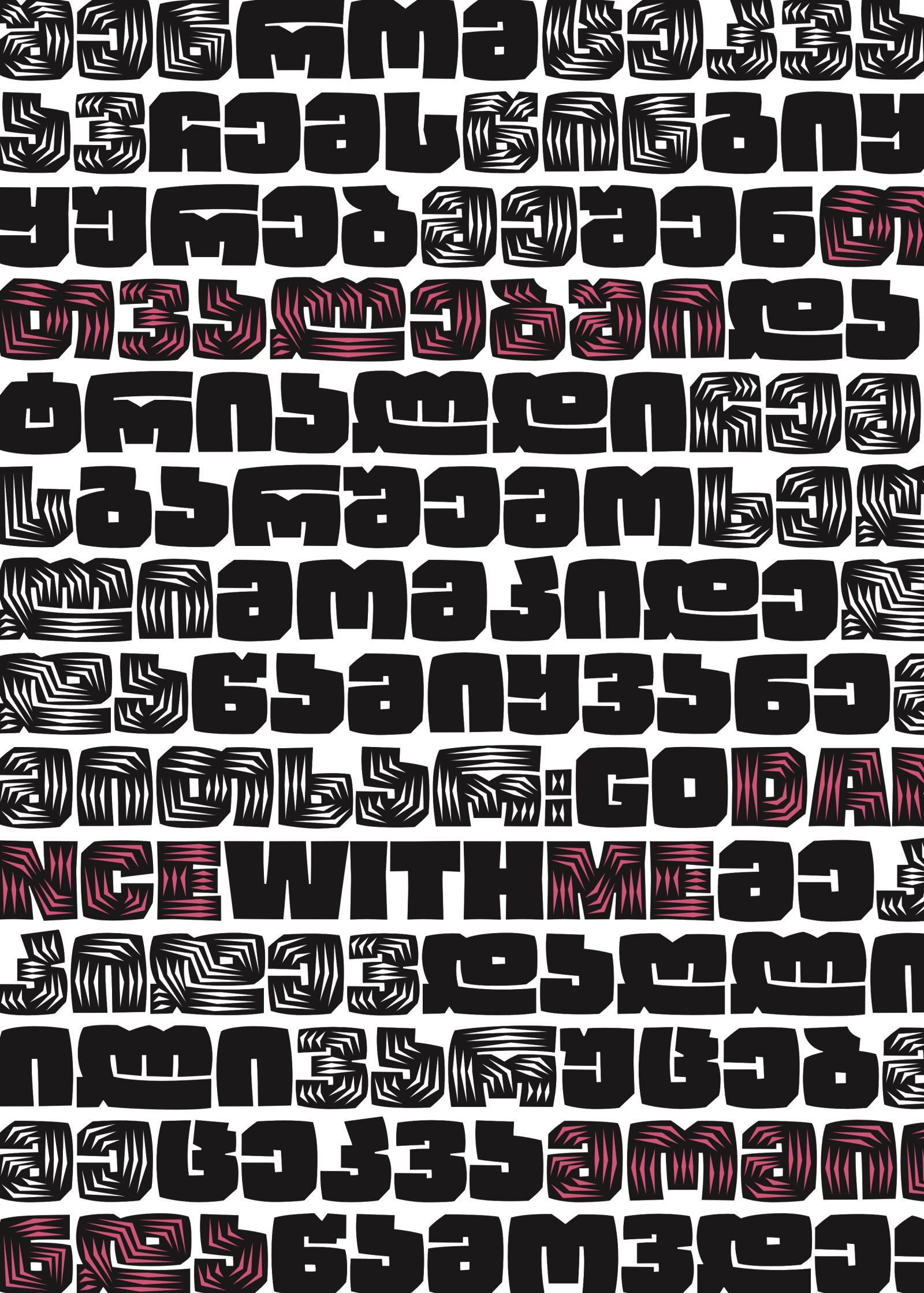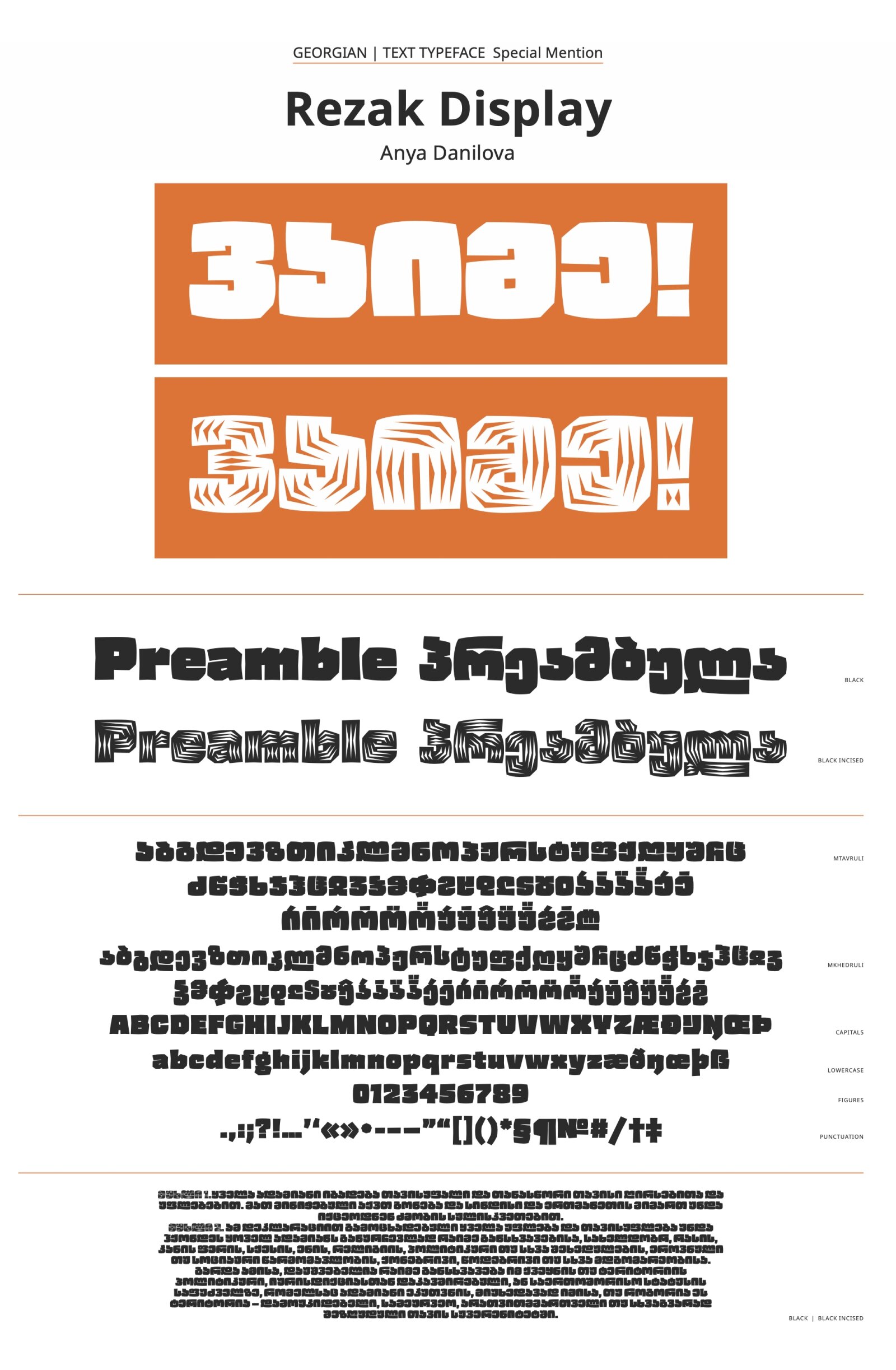
Rezak Display
by Anya Danilova
Georgian
This characteristic font harmonizes its silhouette with a complex rhythm and incorporates a unique decorative style while maintaining the traditional forms of the Georgian "Mkhedruli" script.
A typeface was inspired by cutting letters out of a material. With only a few cuts, the shapes remain dark and simple. With more and more cuts, the shapes become lighter and more defined. It started as a student project and for the sake of the concept had a one range between the darkest style (least cuts, sans-serif) and the lightest style (regular, serif). Now, the type family grew into having separate Text styles which are serif, and a complimentary Display styles which are sans-serif. The roughness and irregularity of strokes provide a strong character to a typeface and translating this character into other scripts such as Georgian was not only a challenge but a constant discovery of the possibilities of shapes. The Black style is truly the darkest and was made with as little "cuts" as possible while maintaining legibility. The Incised version is based on Black one and can be used overlayed with it, providing more opportunities for using color in design.